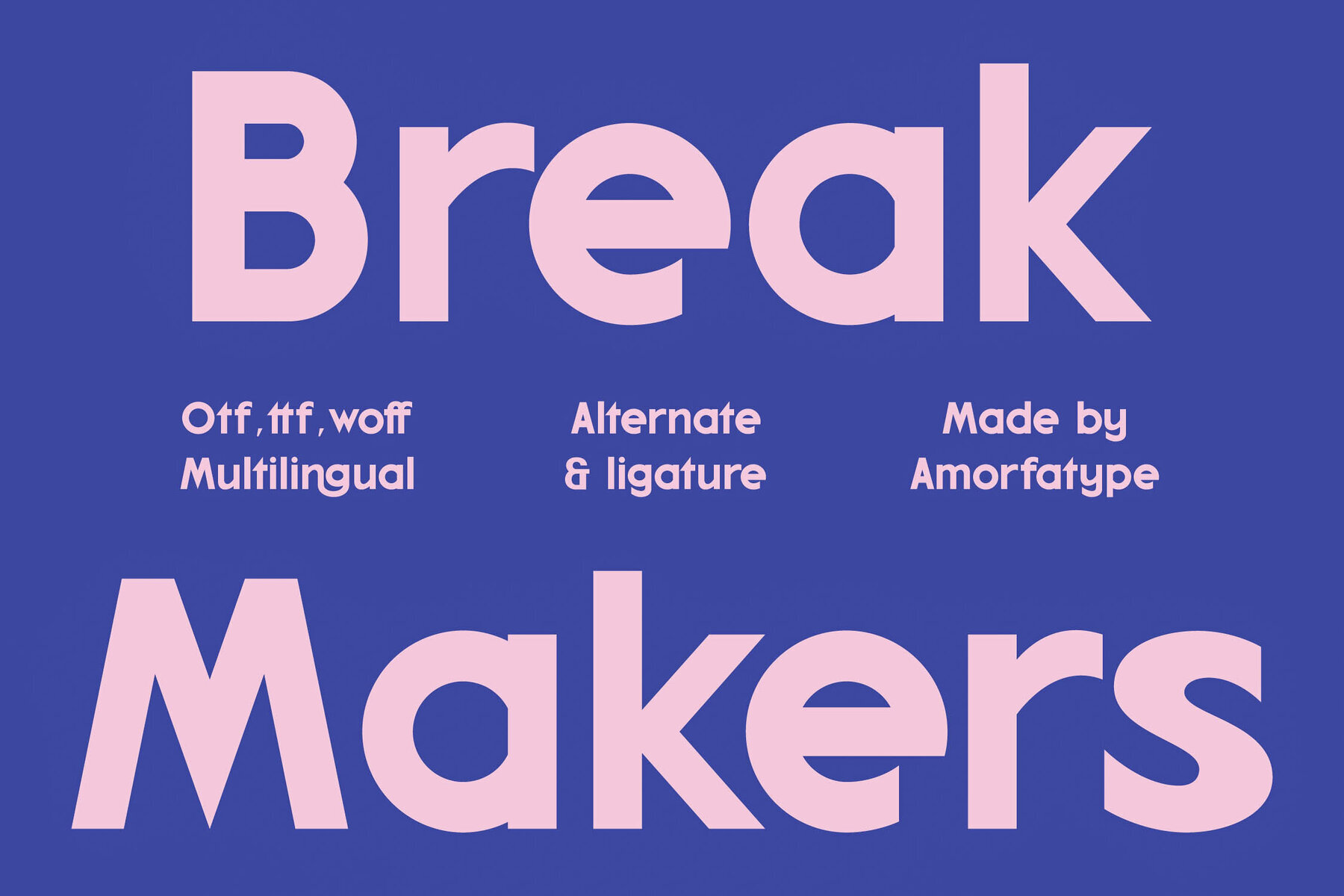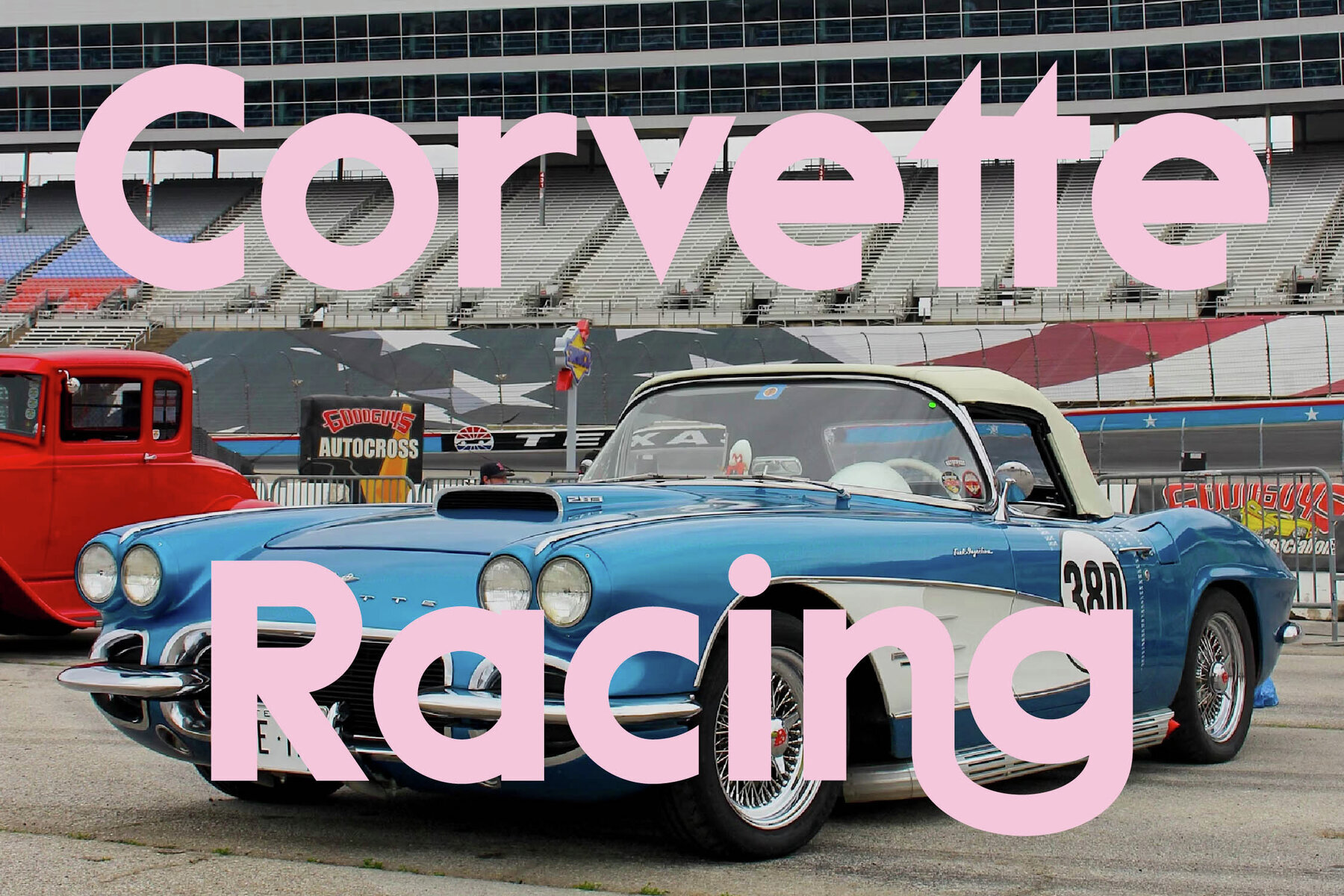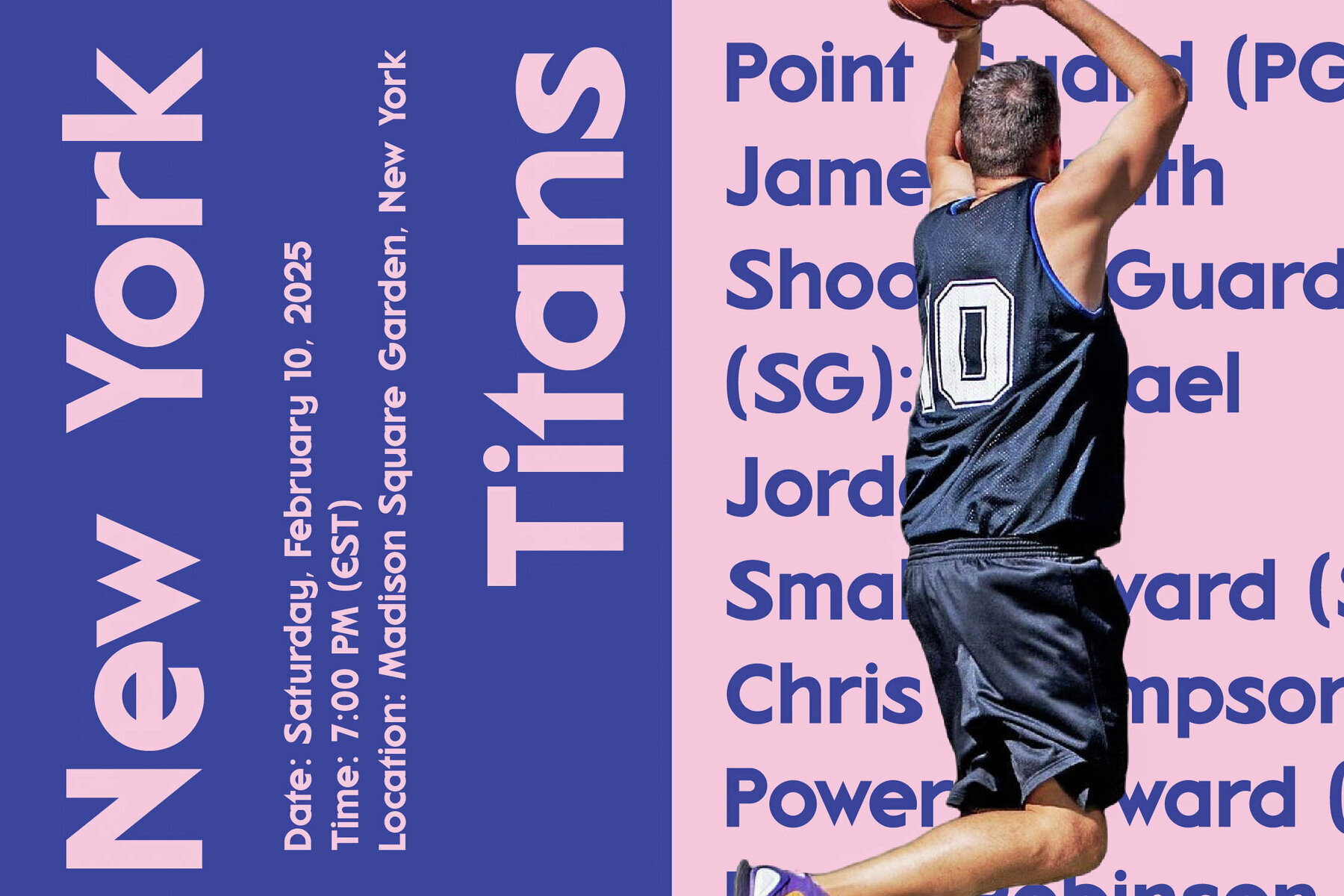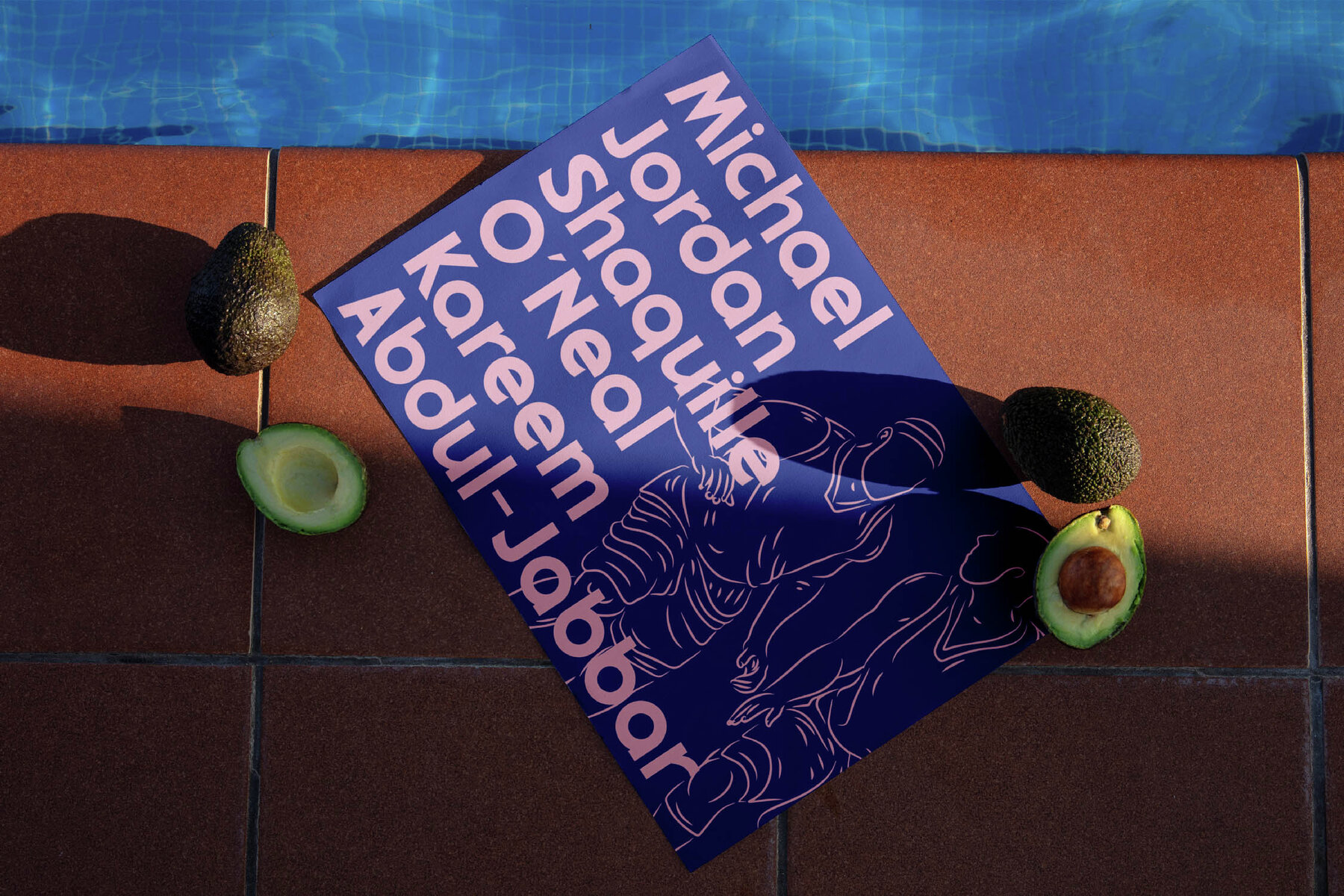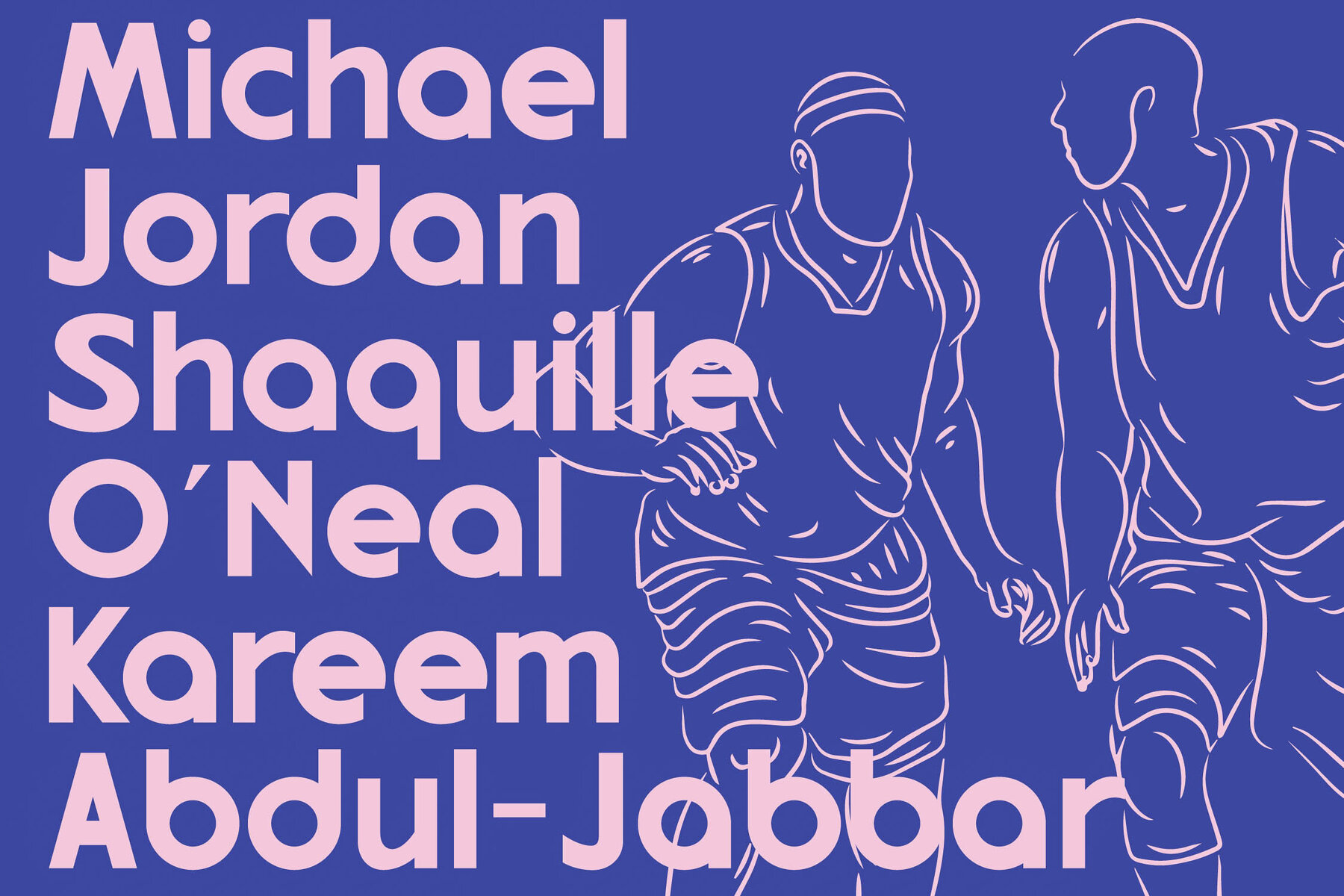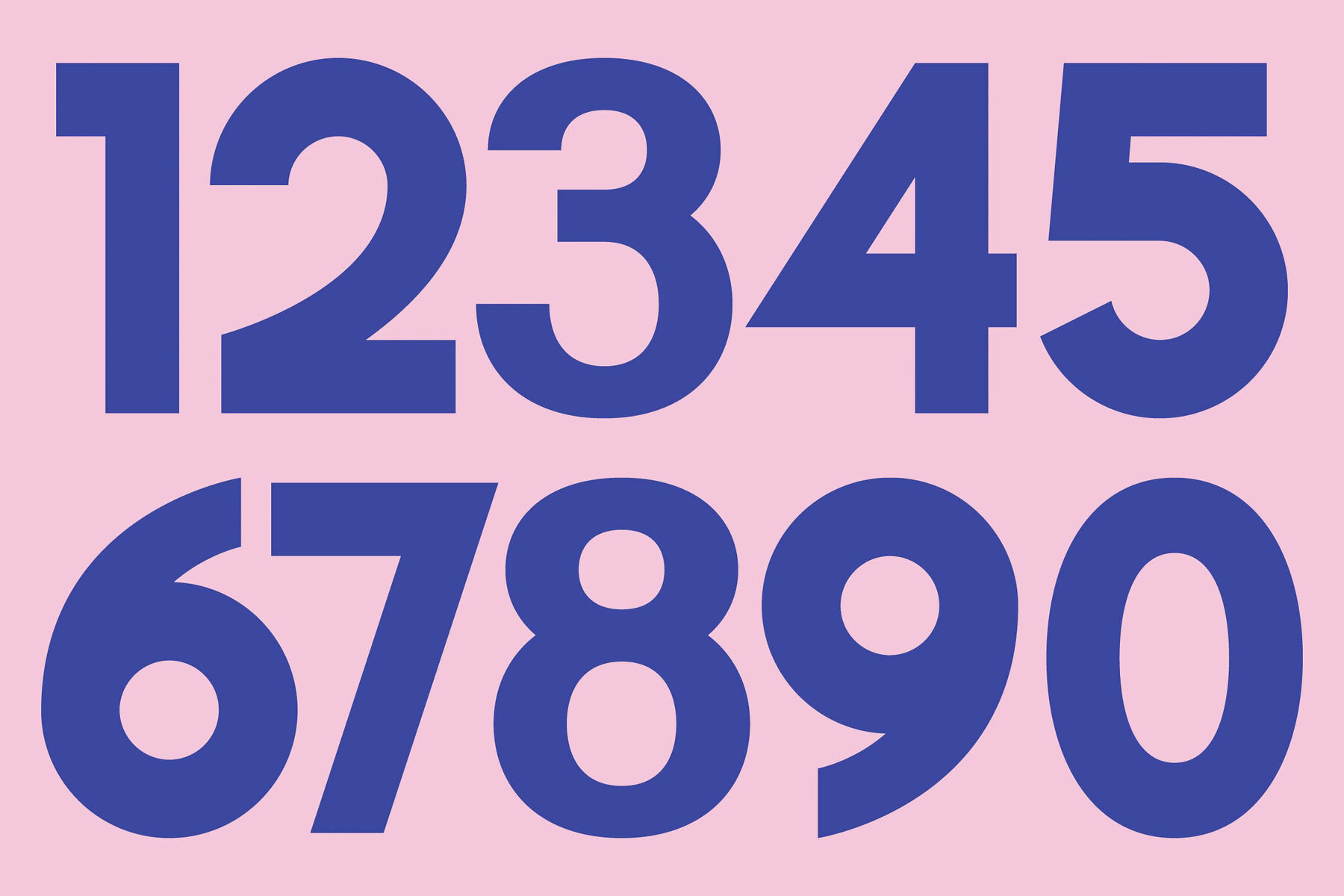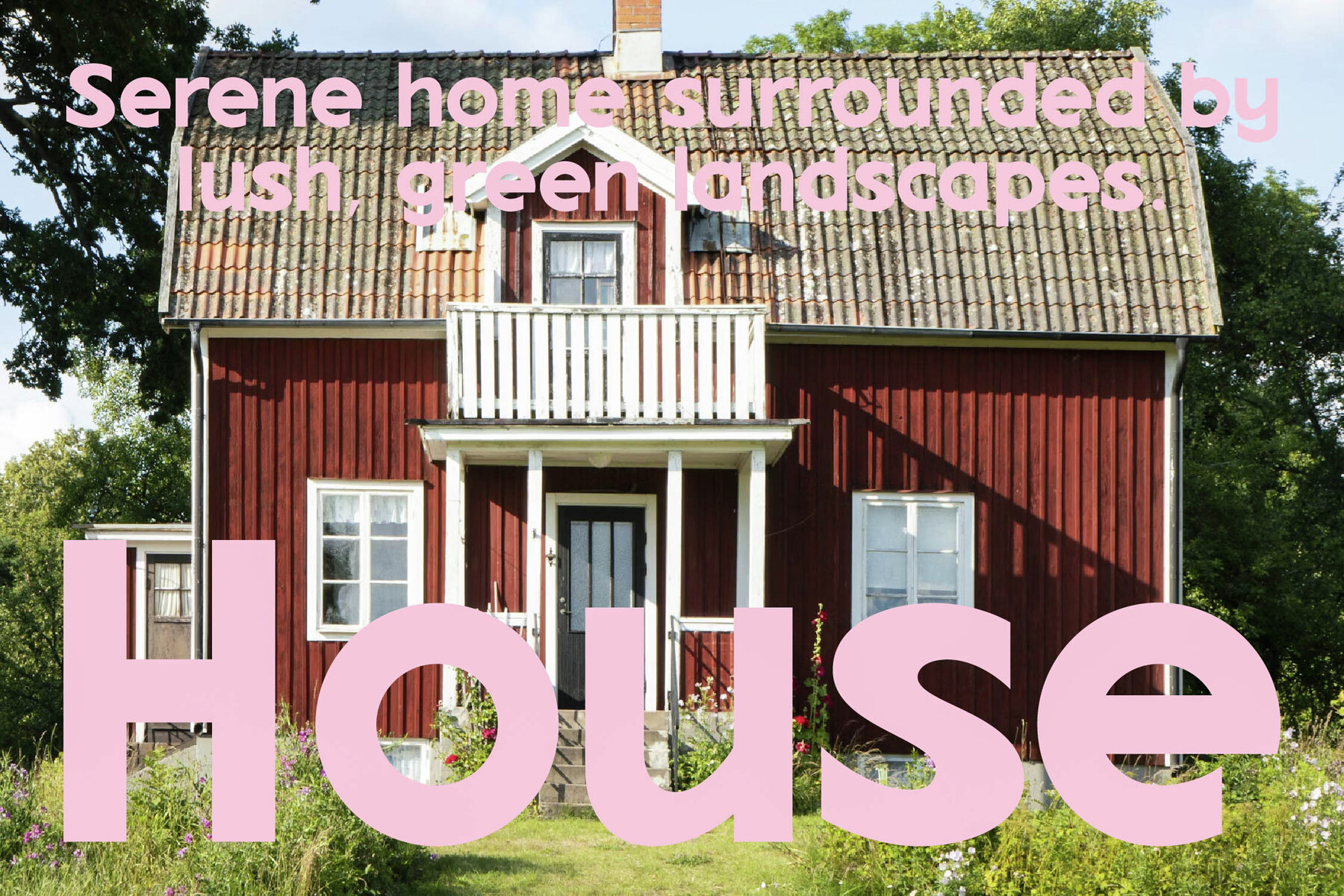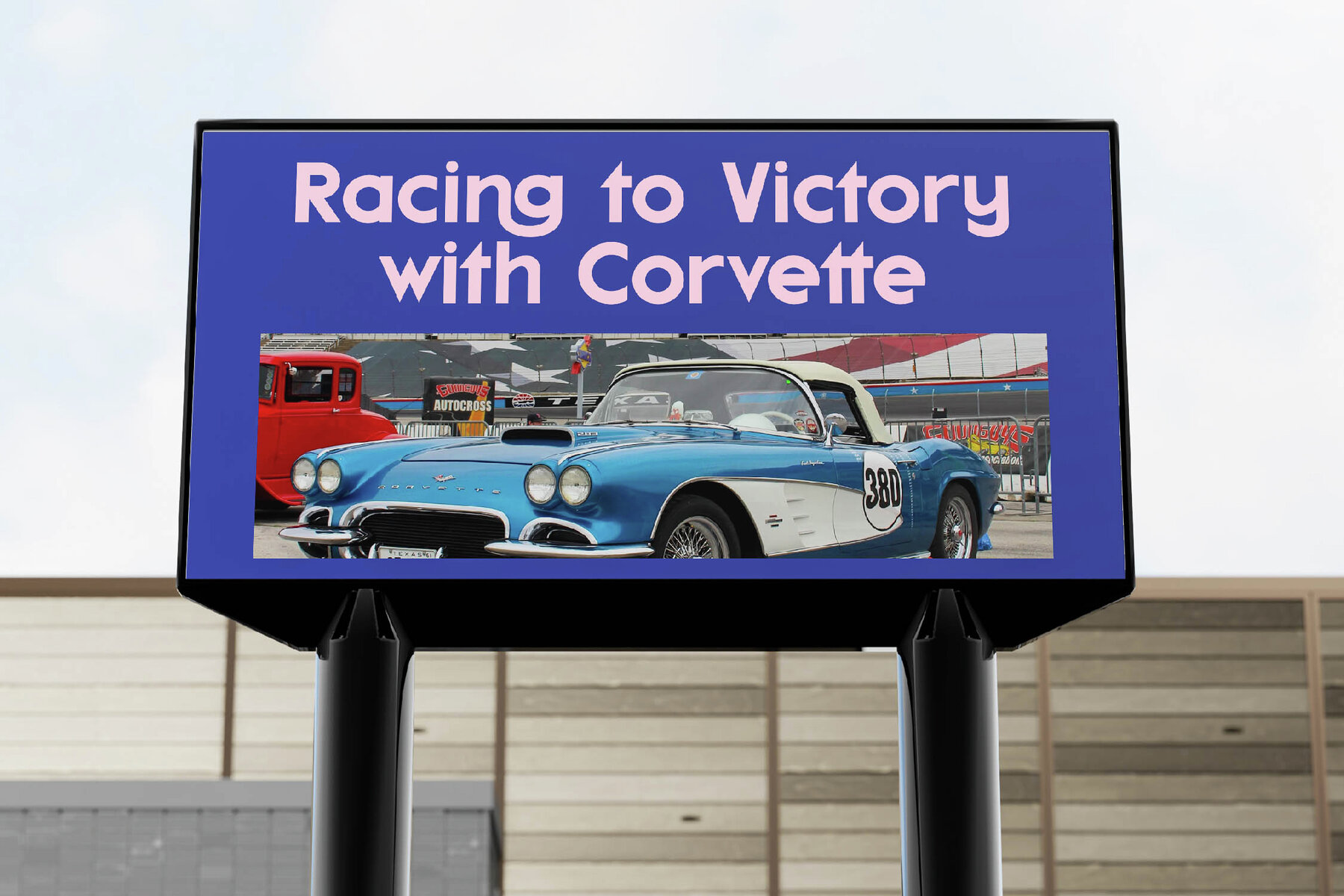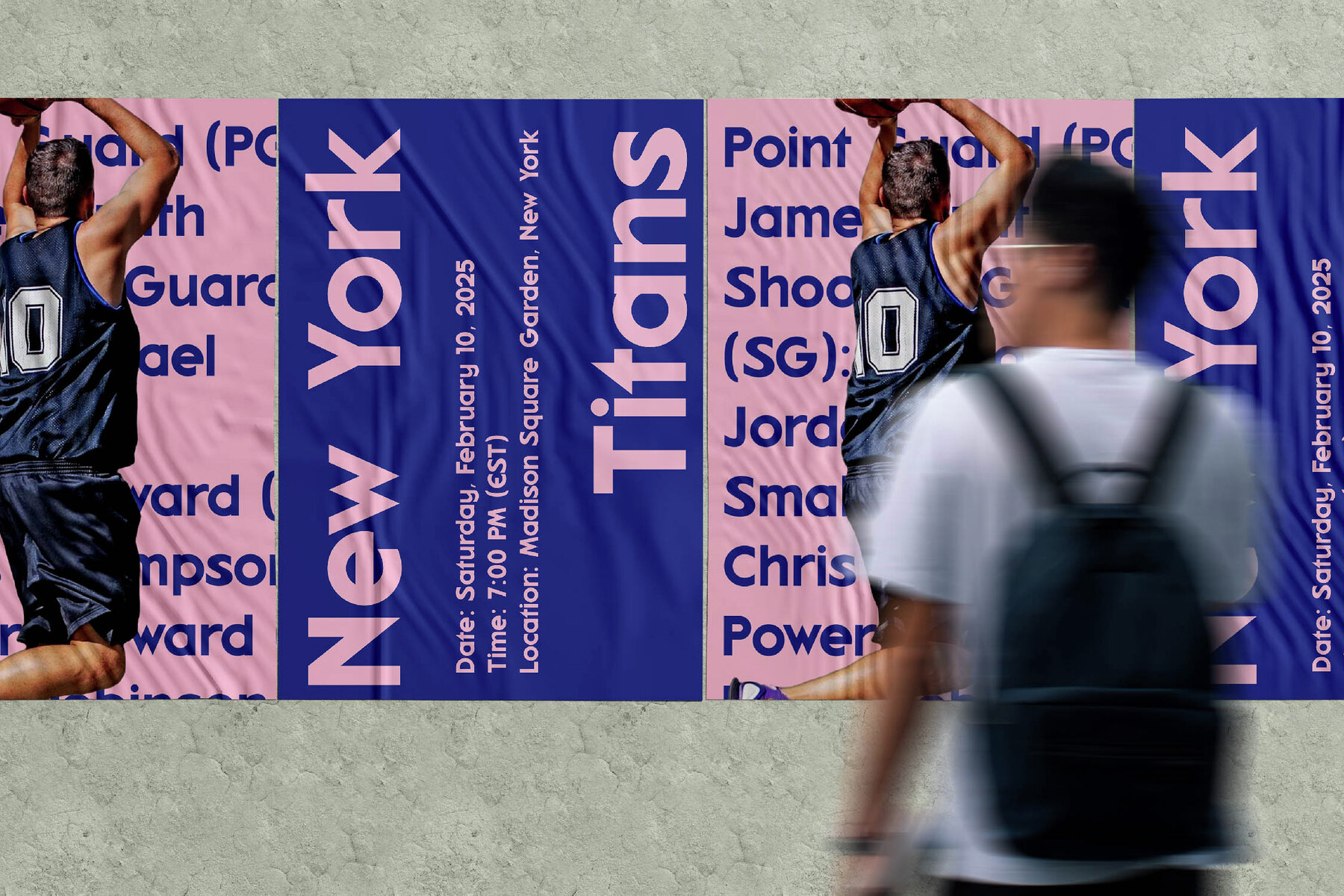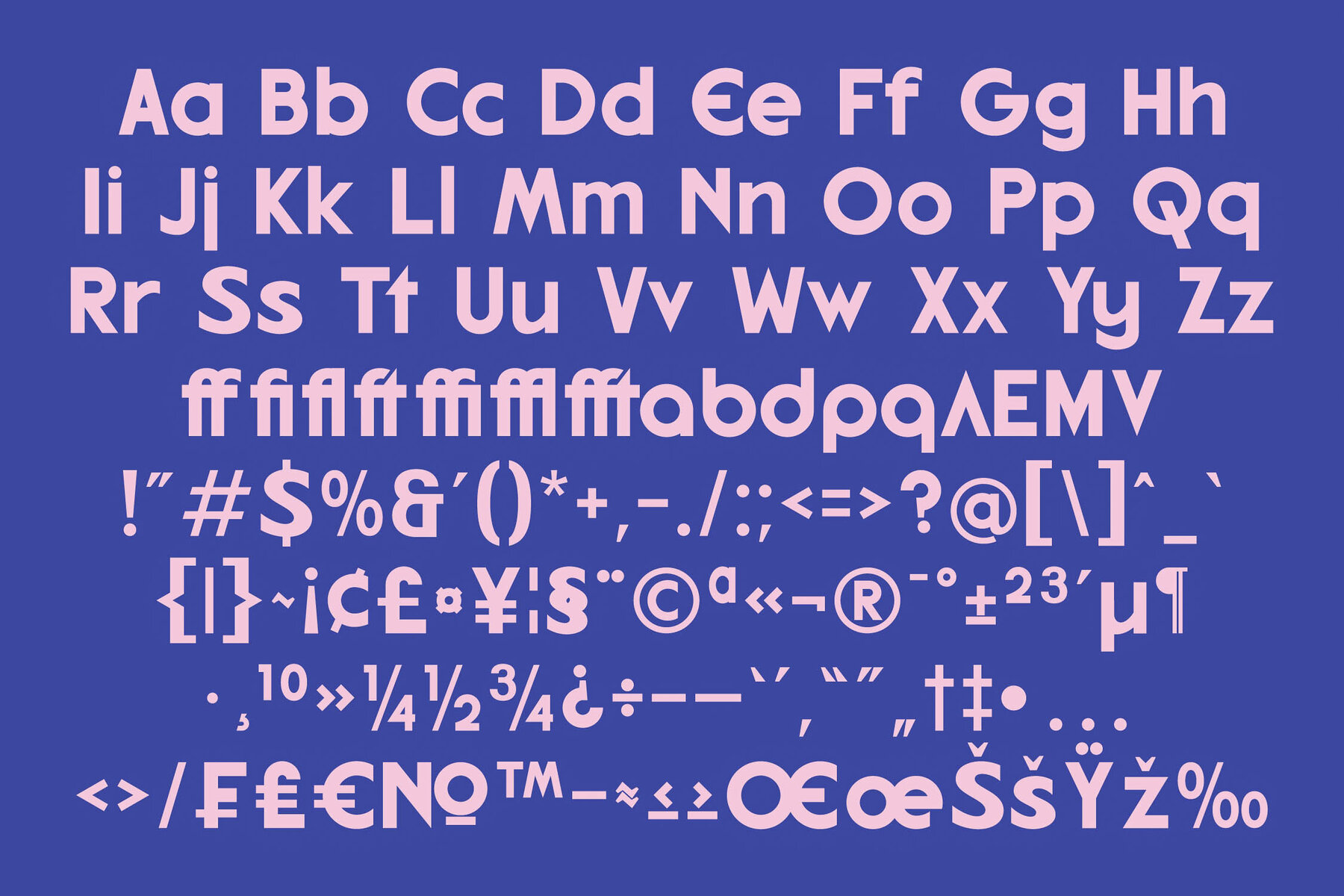
Break Makers Font
Break Makers Modern Sans Serif Font by Amorfatype Break Makers is a bold and modern sans serif font that seamlessly integrates contemporary design with minimalistic sophistication. Featuring clean geometric forms and smooth, sharp lines, this font exudes clarity and professionalism, making it an ideal choice for a variety of creative projects. The subtle contrasts in stroke weights and sleek details give Break Makers a polished and versatile appearance, perfectly balancing modern aesthetics with functional readability. Designed for flexibility, Break Makers excels in numerous applications, from innovative branding and editorial layouts to sleek digital interfaces. Its bold yet approachable character shines in both prominent headlines and detailed body text, delivering a seamless blend of aesthetics and practicality. Every letterform is thoughtfully designed to ensure exceptional readability while adding a stylish edge to your creative work. This Package Includes: